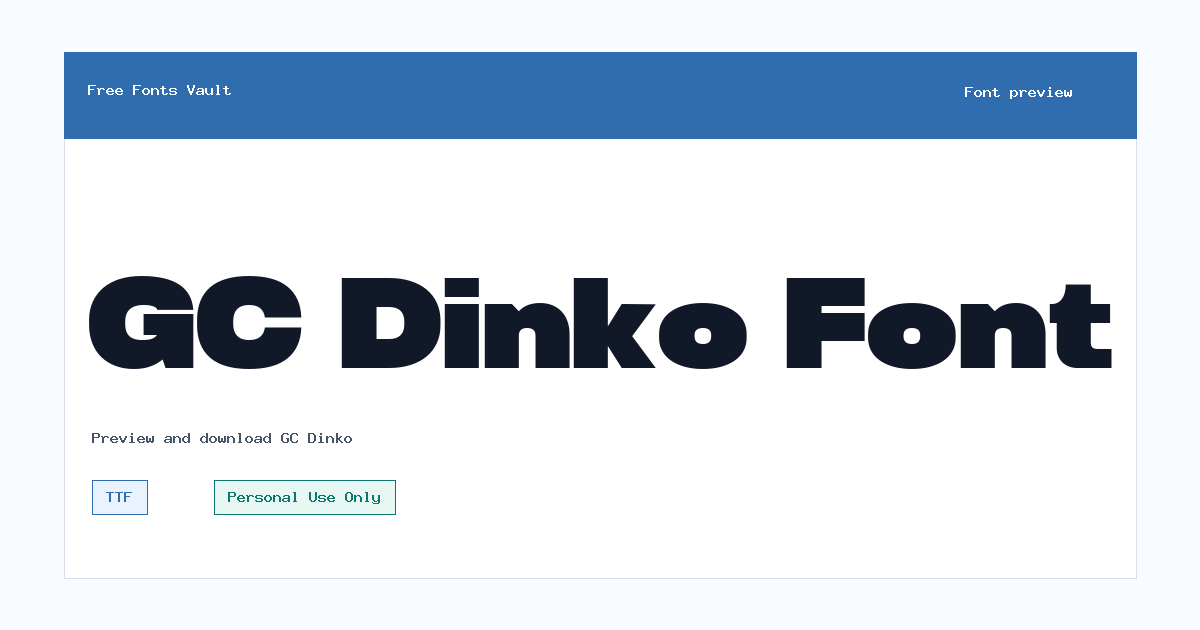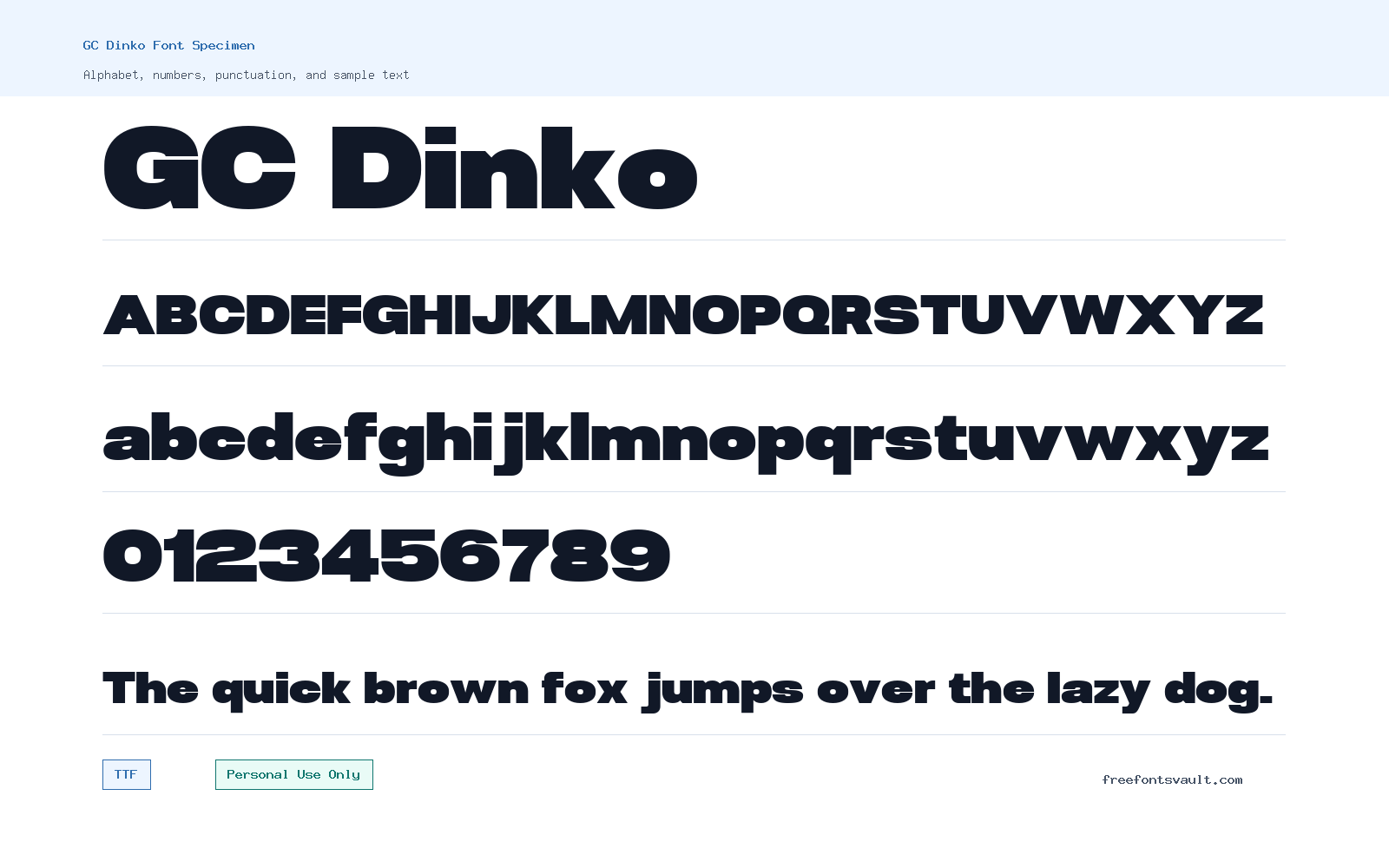
GC Dinko
- Designer Zainaldi Ibrahim of Glyphonic
GC Dinko is a sans serif demo font with a clean display feel, useful for testing bold title ideas, brand mockups, posters, and short pieces of text before licensing it properly.
About GC Dinko
GC Dinko is credited to Zainaldi Ibrahim of Glyphonic. The downloadable file is a regular TTF style, so it should be easy to install and try in most design apps that support TrueType fonts. Since only one regular style is listed, it is best treated as a display option rather than a full type system with multiple weights or italics.
- Sans serif demo style suited to short display text and mockups
- Headline previews, poster drafts, and social media mockups
- Personal logo concepts, title treatments, and non-commercial design experiments
What is GC Dinko best used for?
It is best for short display text such as headlines, personal logo drafts, posters, social graphics, and other non-commercial mockups.